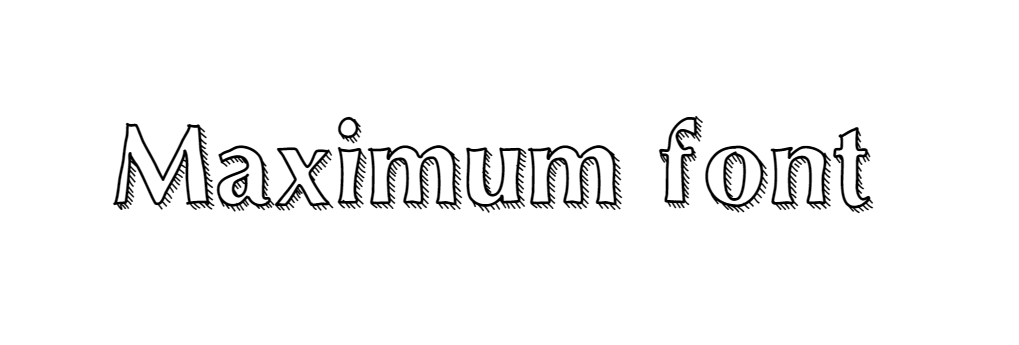
Maximum
Maximum is a cartoon font. It has a cheerful, hand-drawn look that makes people smile before they even read the words. You can download it for free and test it with your own words in the preview above.
What You Can Type With Maximum
With complete upper and lowercase letters and all ten digits, Maximum is ready for real wording, not just a single headline. Punctuation is limited, so look at the character map if you need a specific symbol. It doesn't include accented letters such as é or ñ, which makes it an English-only font.
Where Maximum Works Best
Maximum is a natural fit for kids' books, birthday invites and fun YouTube thumbnails. The file has no kerning data, so in logos and big titles check pairs like AV, To and Wa and tighten the spacing by hand. Cartoon fonts are great for short, fun lines. If you place it over a busy photo, add a thick outline or a drop shadow so it stays readable.
Does Maximum support accented letters?
No. Maximum has no accented letters such as é, ñ or ü, so it's best for English text.